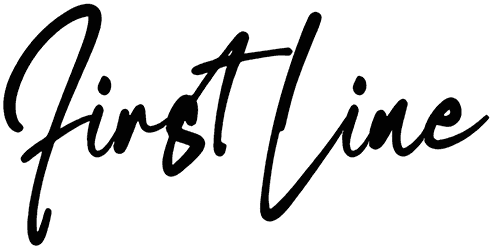
First Line Font
Keeping your words stylish and casual at the same time needs a unique signature font like this one. You will be happy to hear that the First Line font covers A-Z characters. Isn’t it an amazing chance? You can benefit fr…
Keeping your words stylish and casual at the same time needs a unique signature font like this one. You will be happy to hear that the First Line font covers A-Z characters. Isn’t it an amazing chance? You can benefit from this calligraphy font and create whatever you want, from a business card for a CEO to a quote for your Instagram post.